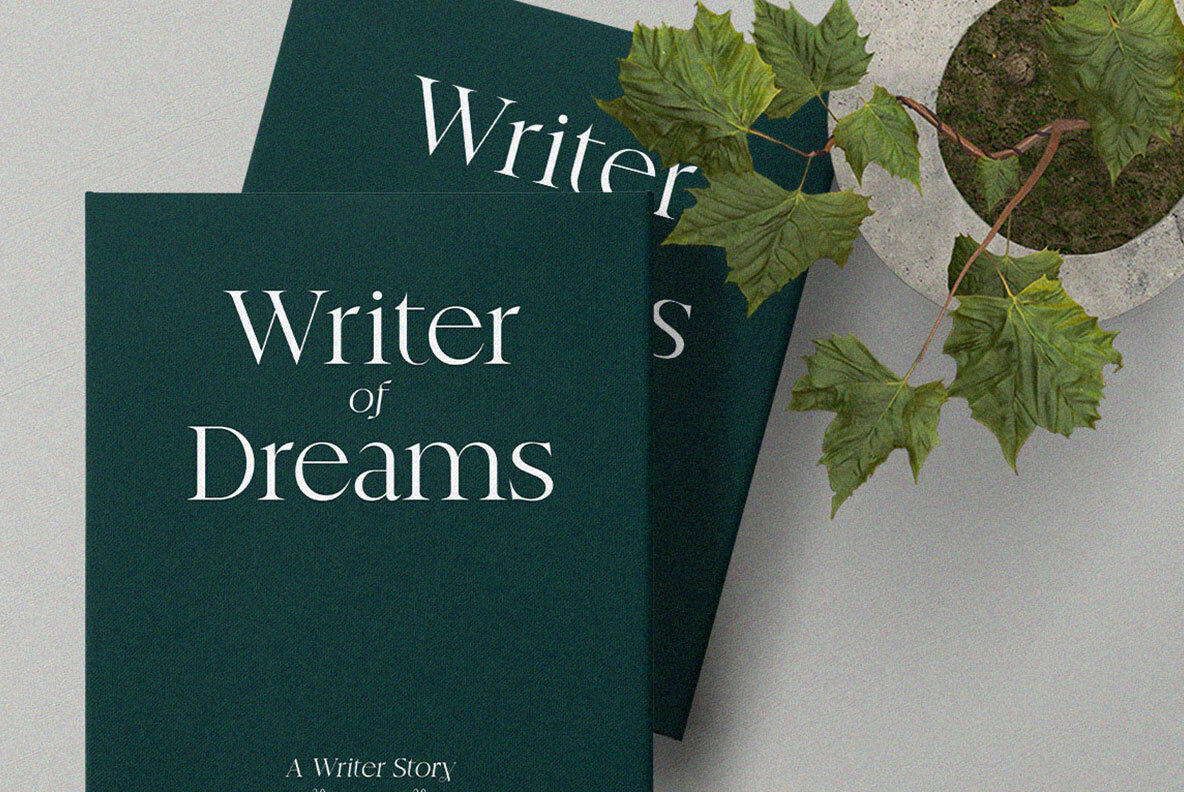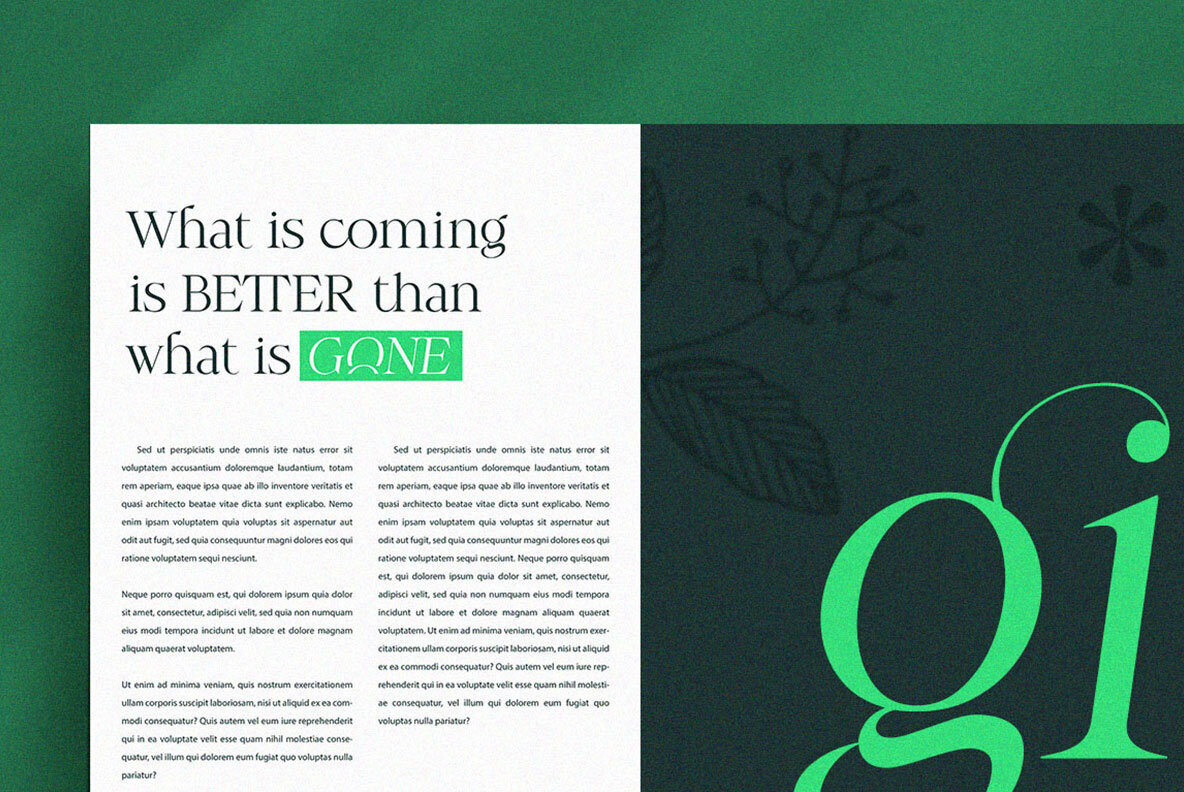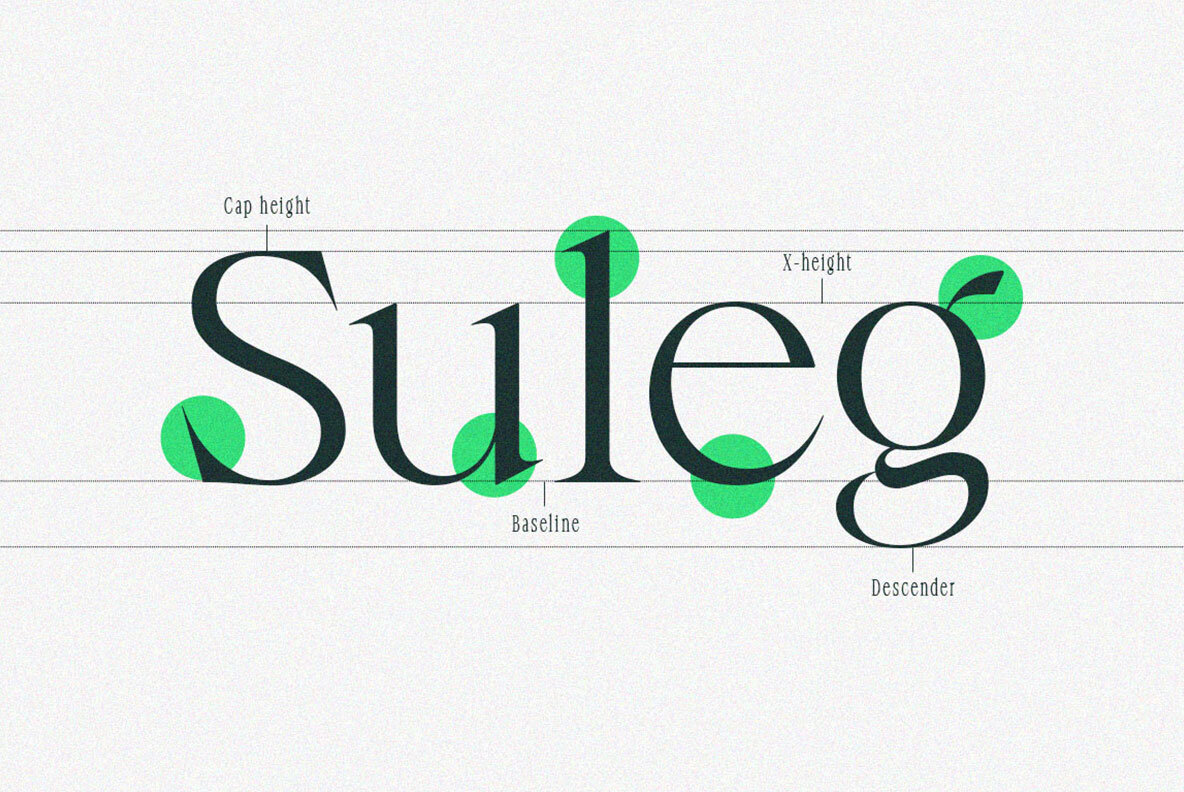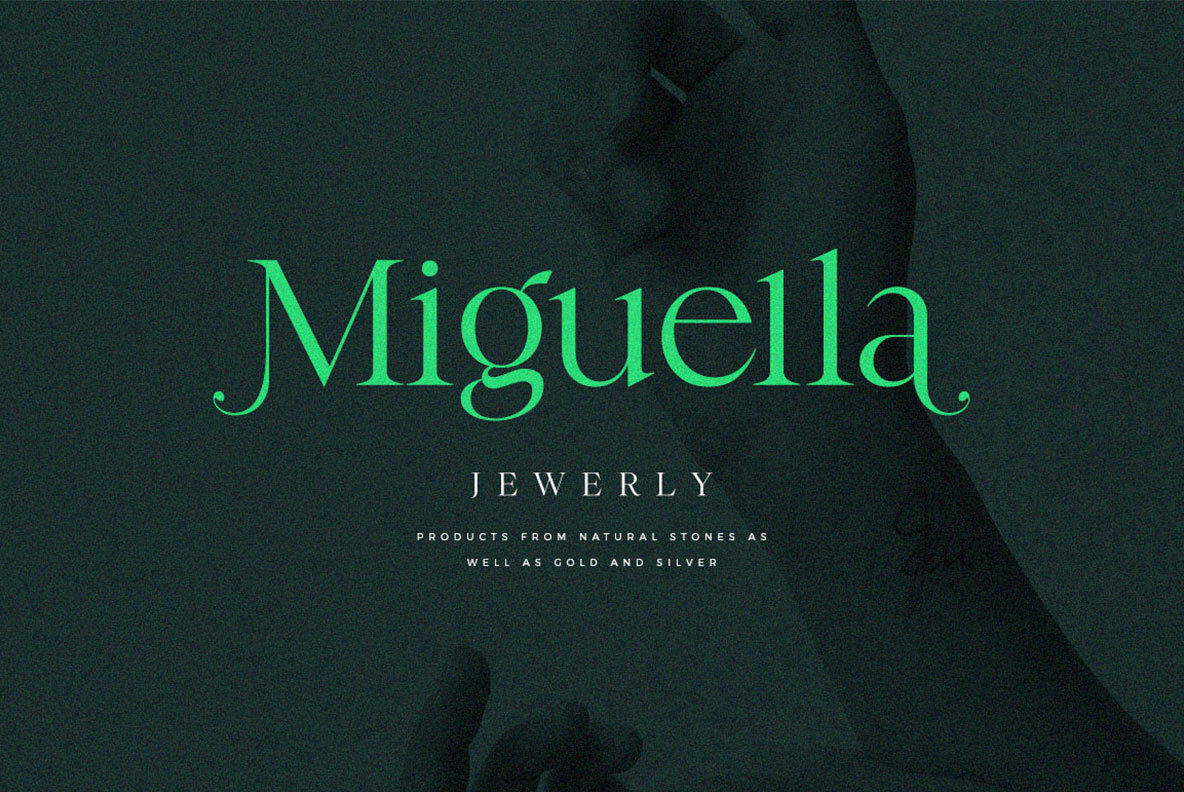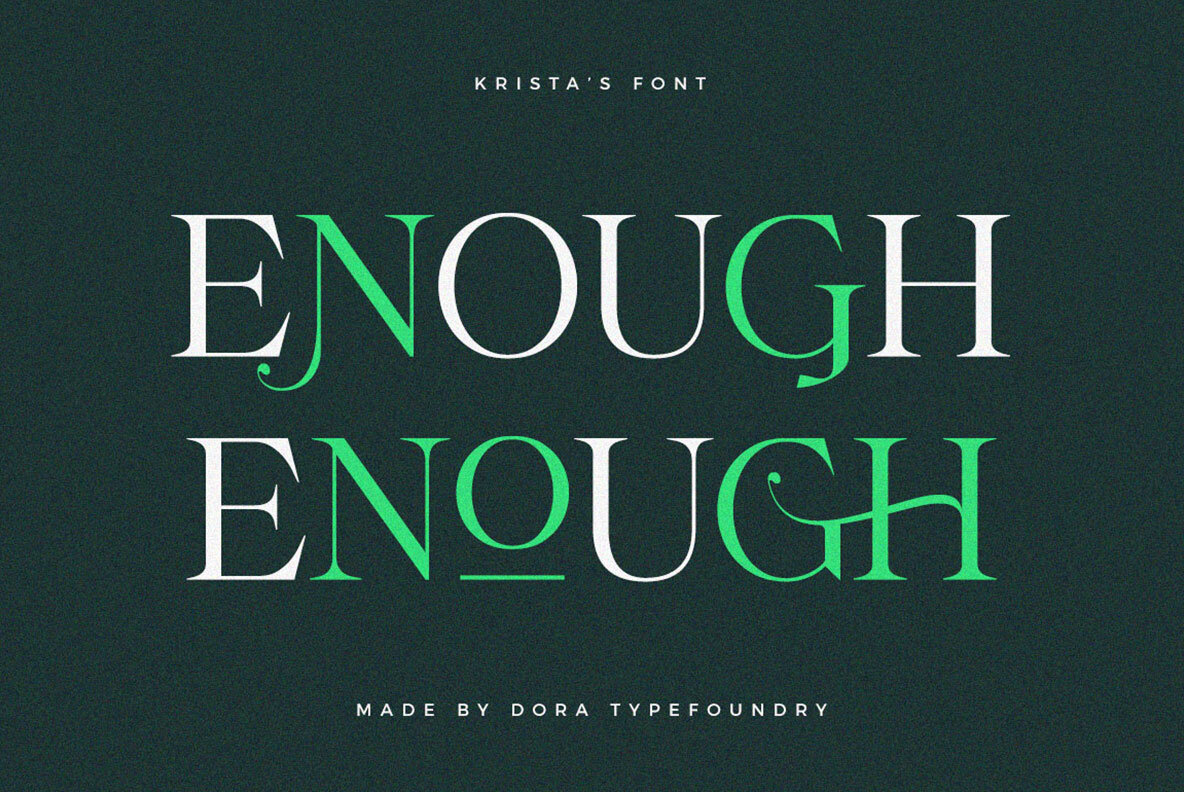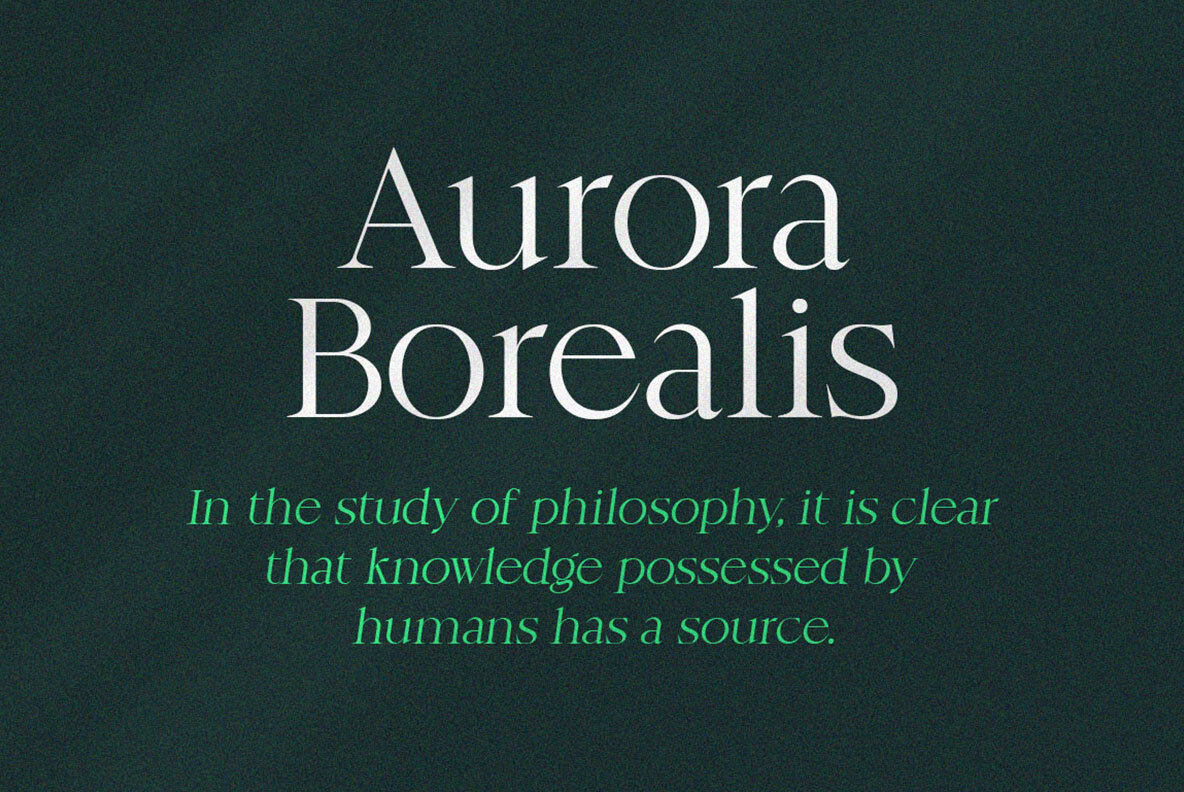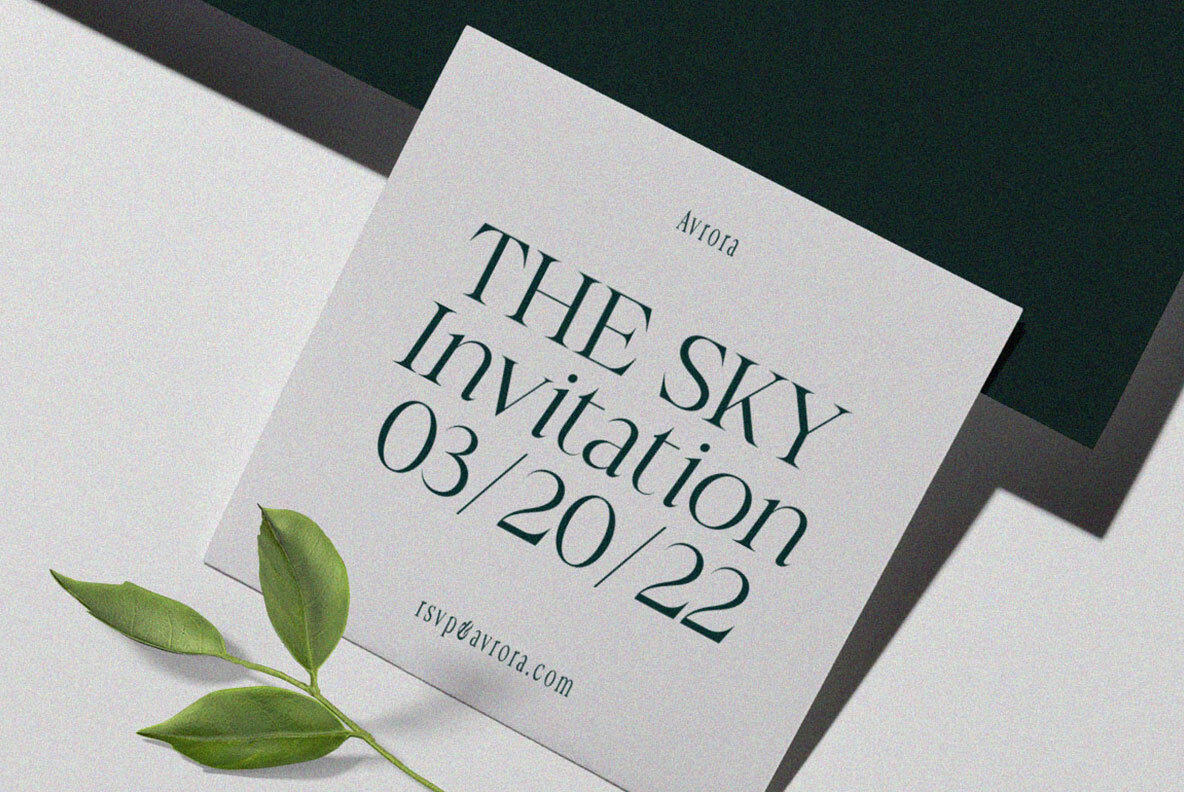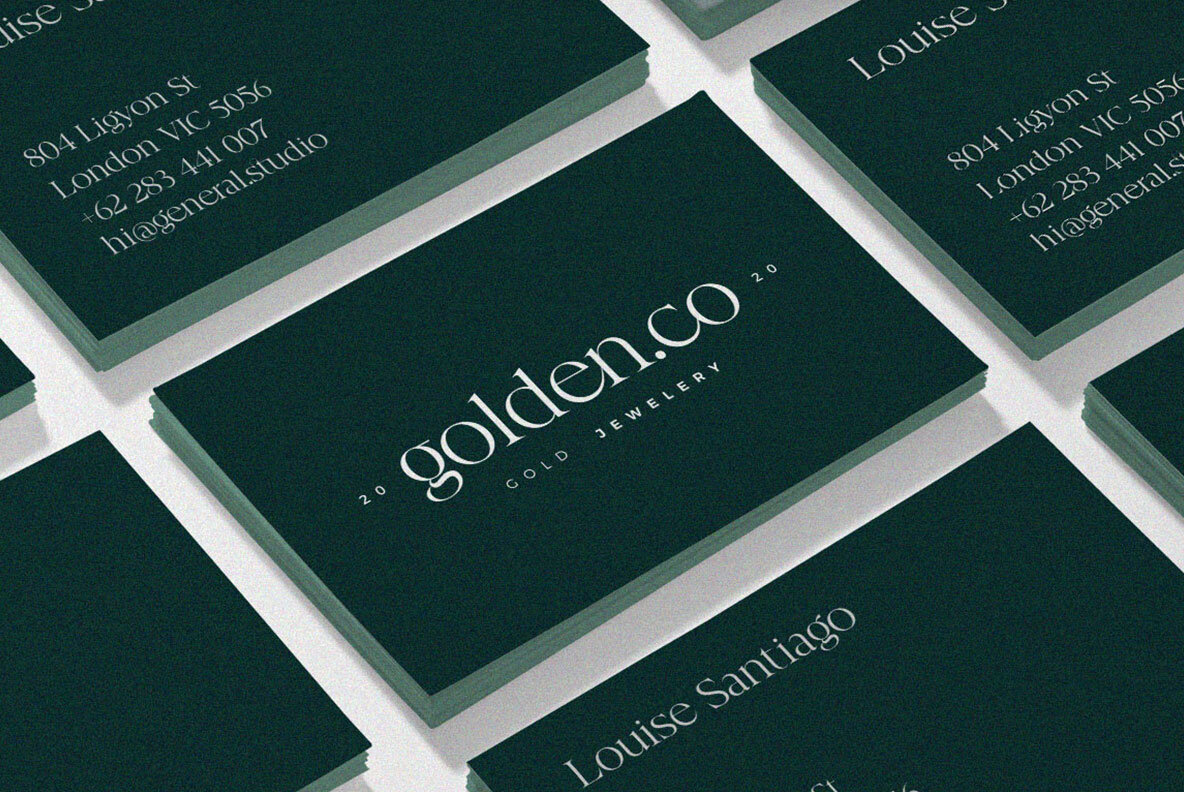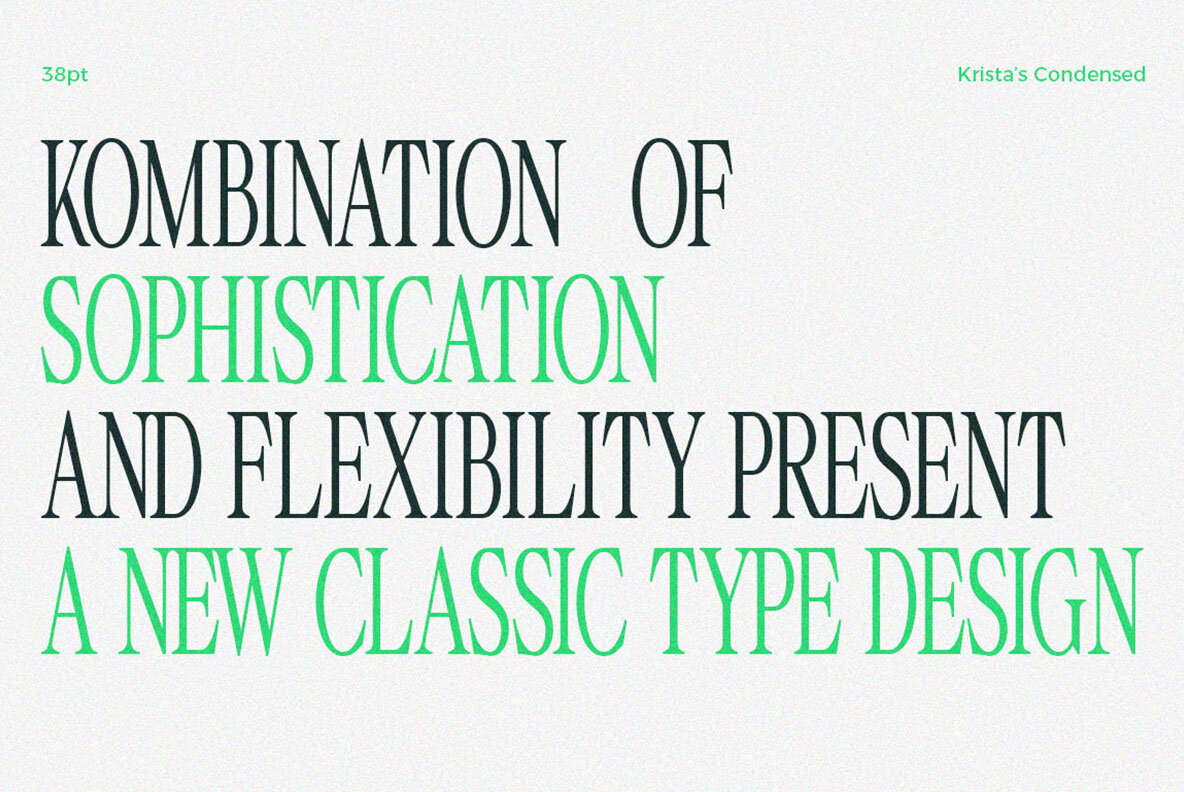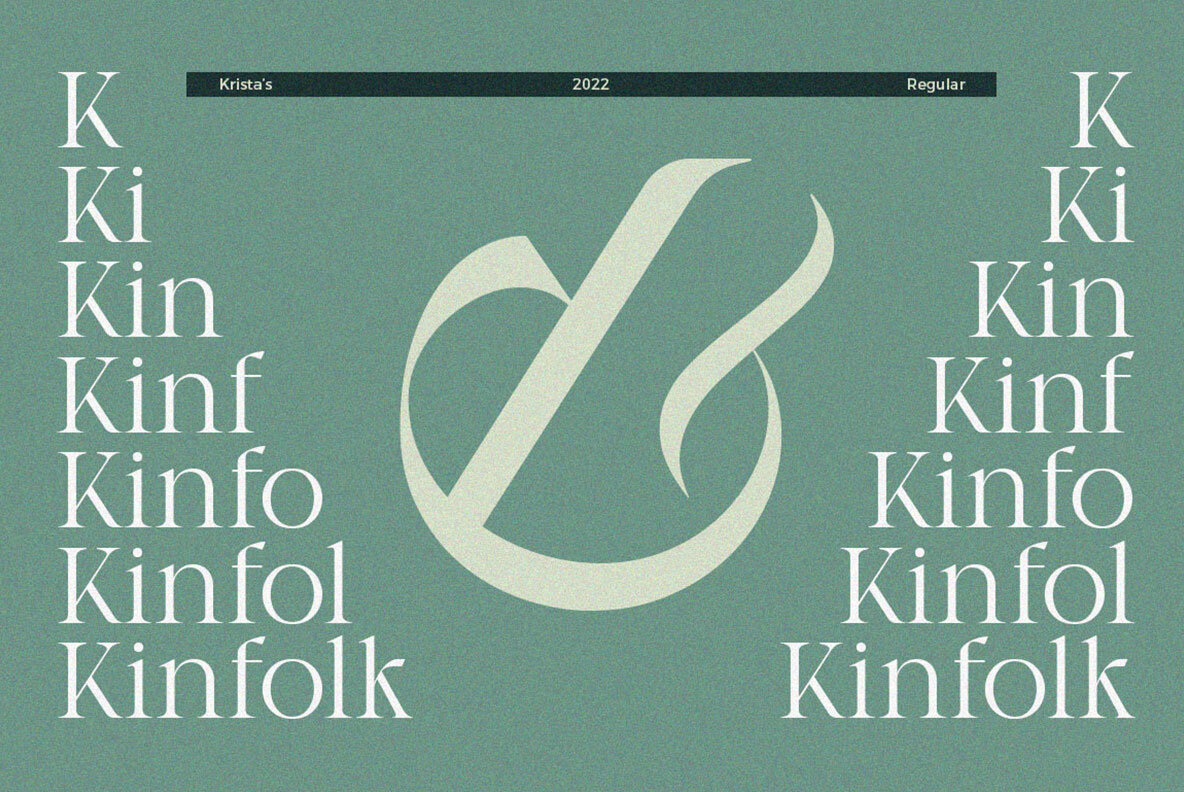
Kristas Font
Kristas is a sophisticated serif display font designed to make a statement. It features a uniquely styled ligature character set that allows letters to flow seamlessly into each other. With over 100 binders and 115 alternatives for both uppercase and lowercase letters, this font offers extensive versatility for multilingual projects. Perfect for a variety of creative endeavors, Kristas excels in applications including logotypes, printed quotes, invitations, cards, product packaging, headers, letterheads, clothing designs, web design, magazines, and books.Kristas: Elegance in Every Curve